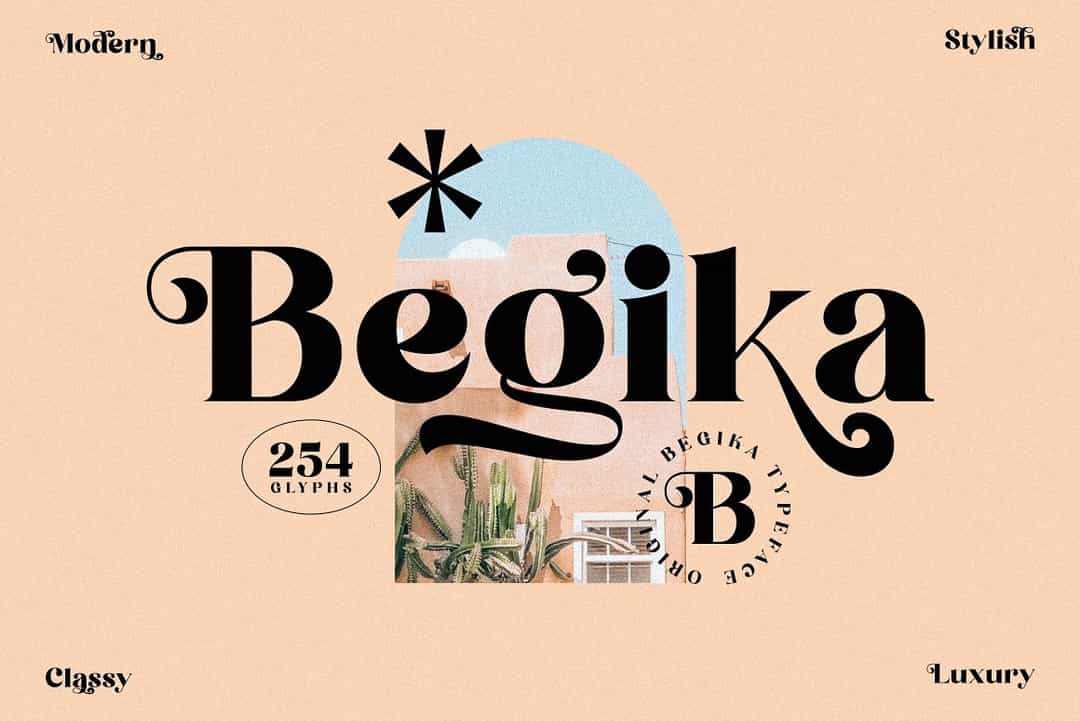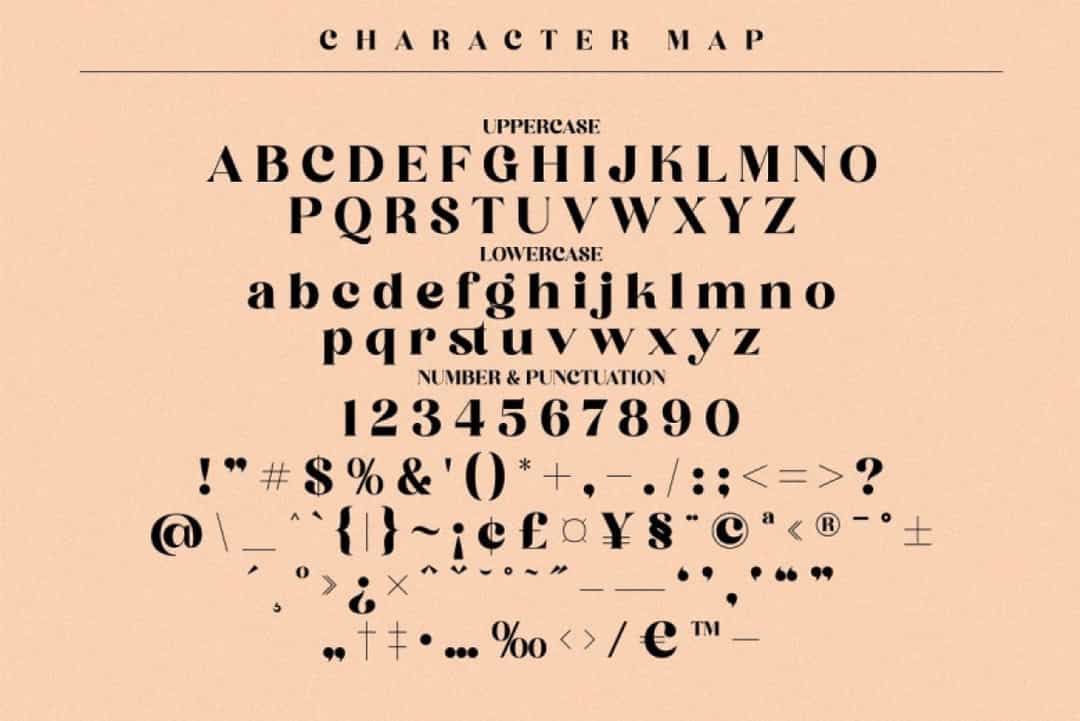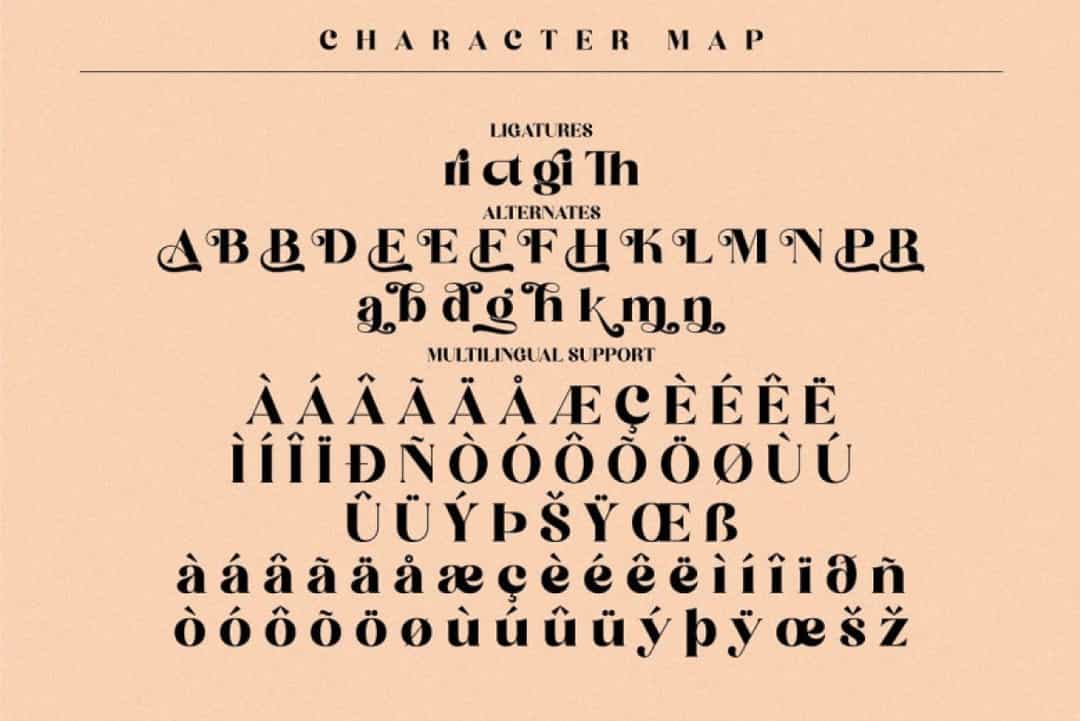
Begika Serif font by Storytype is an elegant and contemporary typeface with its own distinct style and modern appearance, making it the ideal font to use when creating classy and elegant logos, movie/book titles, fashion clothing brands clothing magazines lettering or quotes among many other applications.